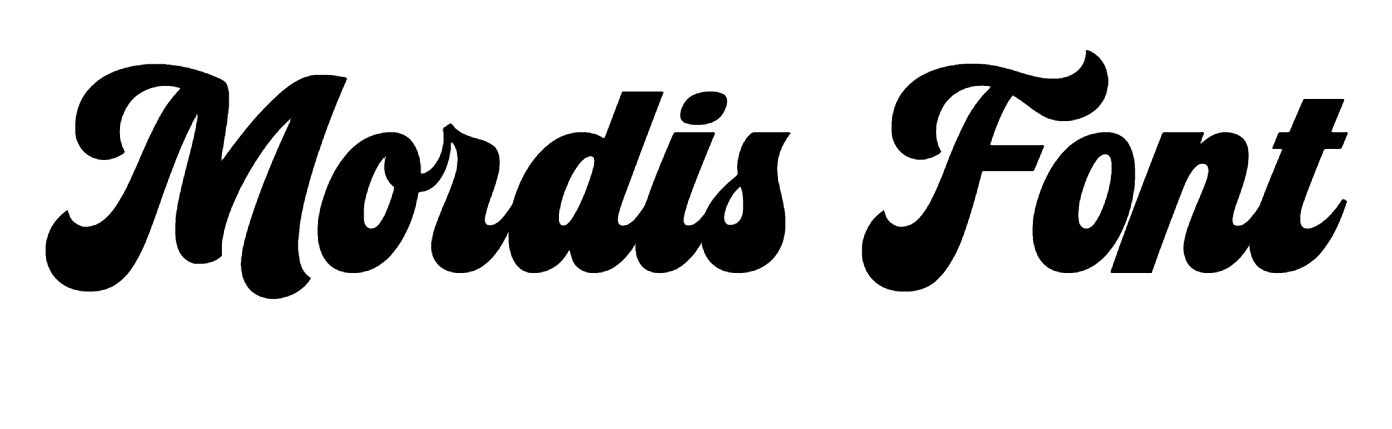
Mordis
Mordis is a script font designed by Burhan Afif and published by HansCo Studio (2023). The letters have the smooth movement of real pen lettering, which is why even a single name looks special in it. It's a free download, and you can try it with your own text in the preview above first.
- Designer: Burhan Afif
- Publisher: HansCo Studio
- OpenType features: Ligatures and 2 stylistic sets
You get every letter from A to Z in both cases and all the numbers from 0 to 9, which means Mordis can handle full sentences, dates and prices. Common punctuation such as &, !, ? and @ is included as well. It also has the accented letters you need for Spanish, French, German, Portuguese and Italian.
Designers usually reach for fonts like Mordis when they're making wedding invitations, logos and signature-style headings. Script fonts read best in short bursts, so keep it to names, titles and one-line quotes. Skip all caps: script capitals are drawn to start a word, not to fill one.